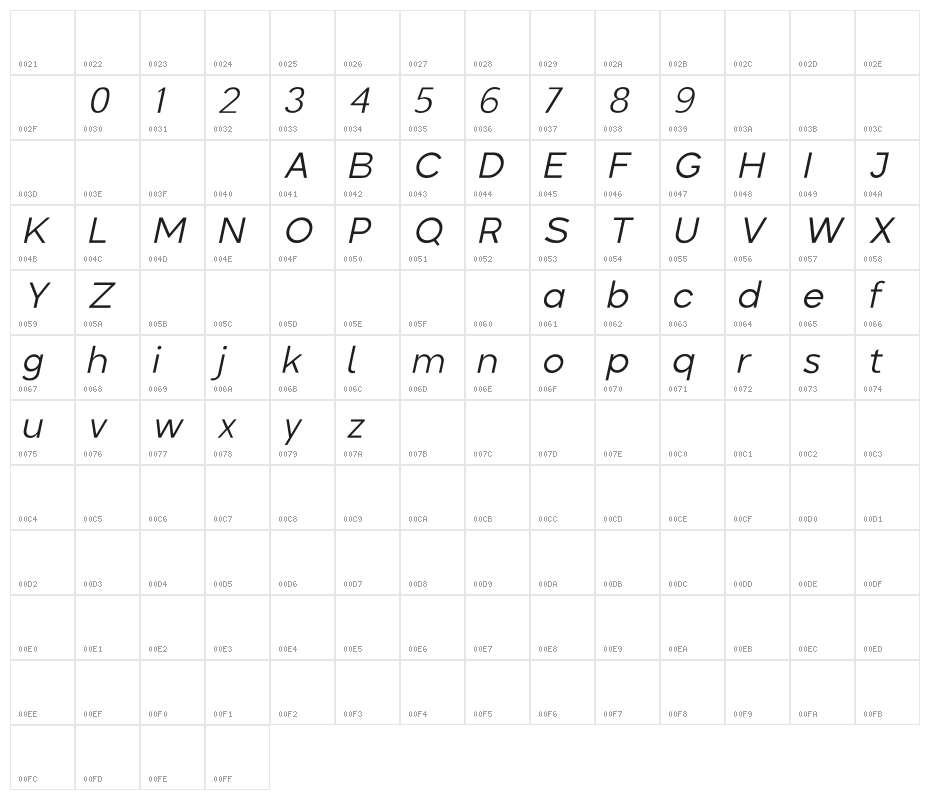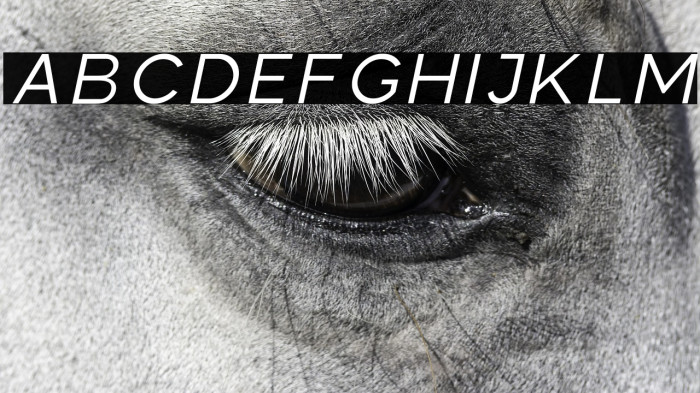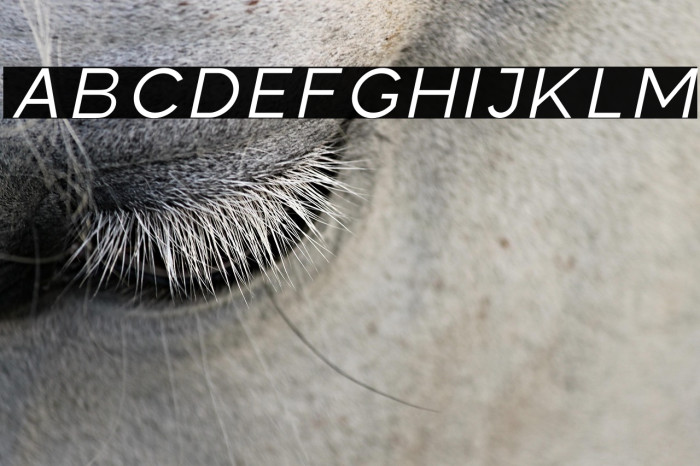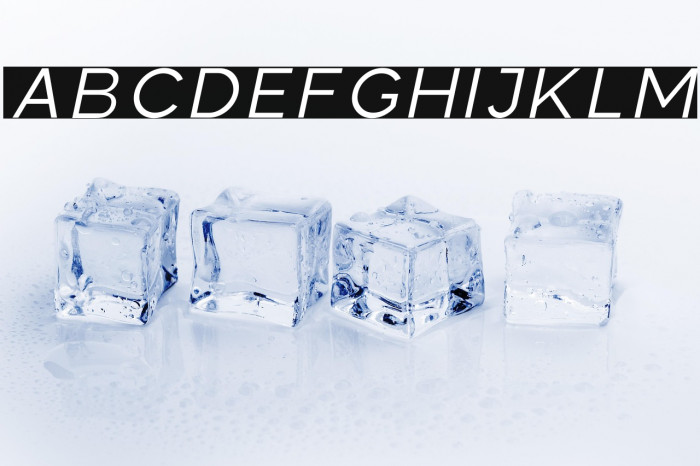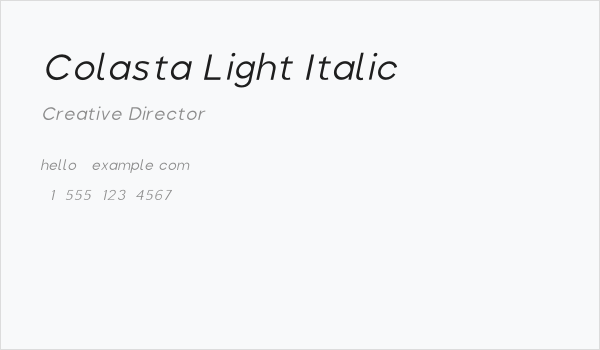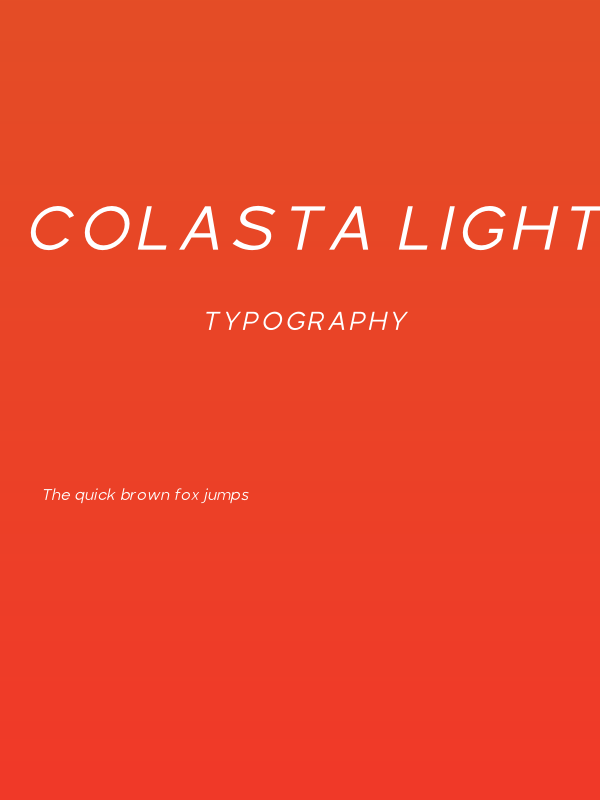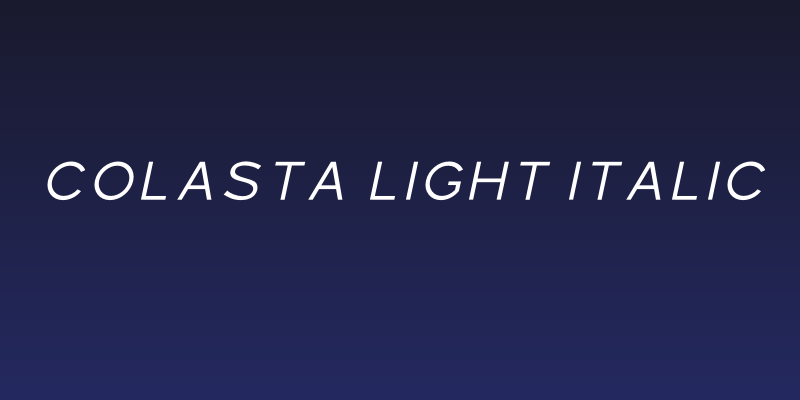
Colasta Light Italic Font
Colasta Light Italic Description
This font features a sleek, modern design with a light weight and italic style. The characters are slightly slanted, giving a sense of motion and elegance. The strokes are uniform and smooth, contributing to a clean and sophisticated appearance. The overall design is minimalistic, making it suitable for contemporary projects. The spacing between characters is normal, ensuring readability while maintaining a stylish look. This font is versatile, ideal for both digital and print media, and can enhance the aesthetic of any project with its refined and understated charm.
| Proposed Projects | Ideal for branding, editorial design, websites, and modern advertising campaigns. |